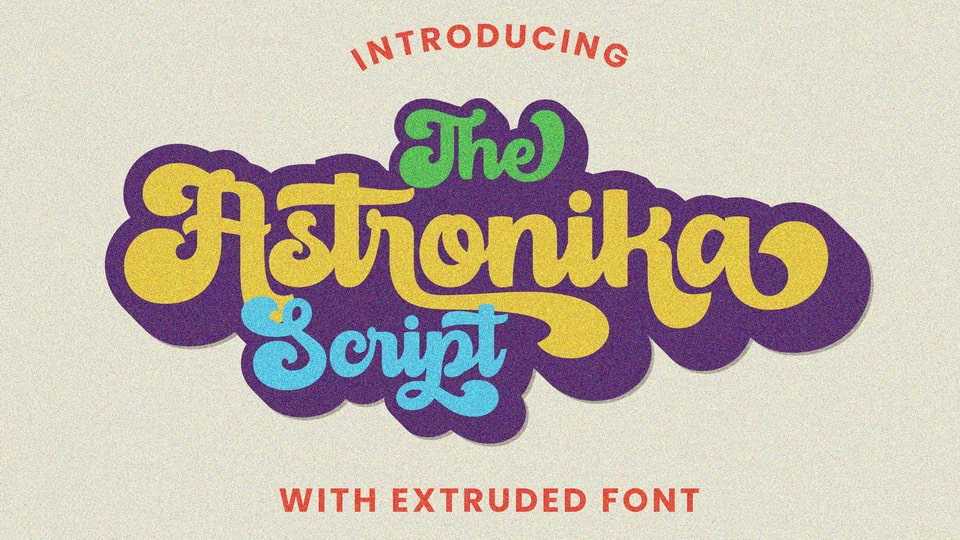
Download Astronika font, a bold retro script typeface. Inspired by the 70’s and 80’s lettering, Astronika font perfect for vintage designs, badges, logos, t-shirts, posters, branding, packaging, signage, book covers and so much more